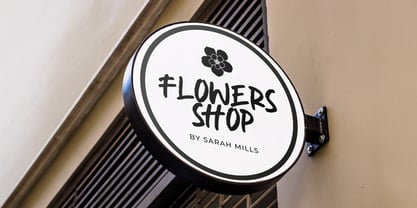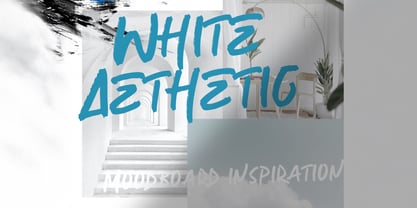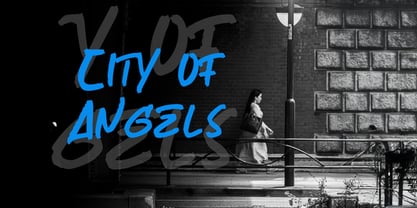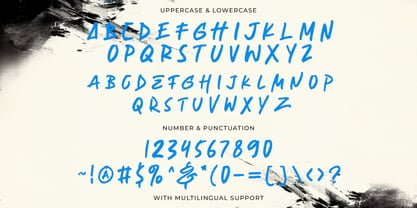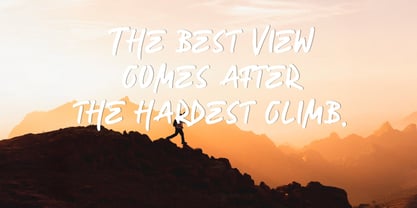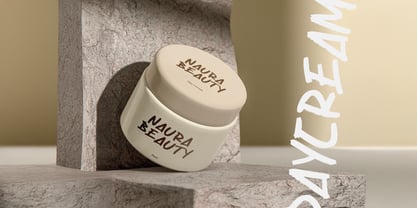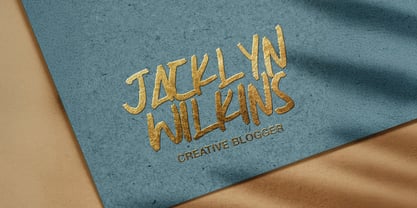
The Moriel Font Family was designed by Virgiawan Listanto and published by Stringlabs Creative Studio. Moriel contains 1 styles. More about this family
Moriel is a powerfully expressive textured brush font that captures a raw, authentic hand-painted aesthetic. The visibility of its prominent, gritty brush strokes gives every letter a unique, organic character, making it the perfect choice for designs that need to feel bold and genuinely handmade. This font excels in high-impact applications, whether you're creating standout logos, dynamic music posters, unique t-shirt graphics, or crafting branding for an artistic and rebellious lifestyle.
Designers: Virgiawan Listanto
Current Foundry: Stringlabs Creative Studio